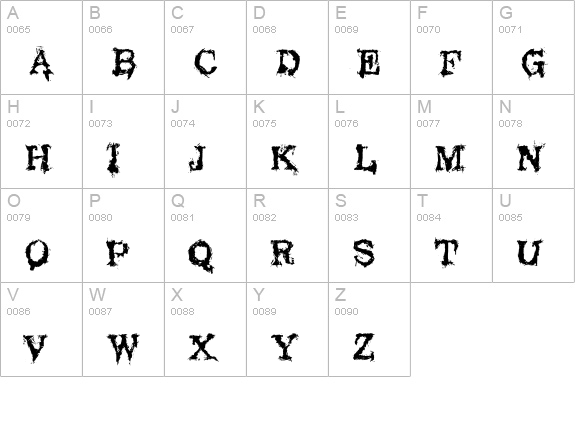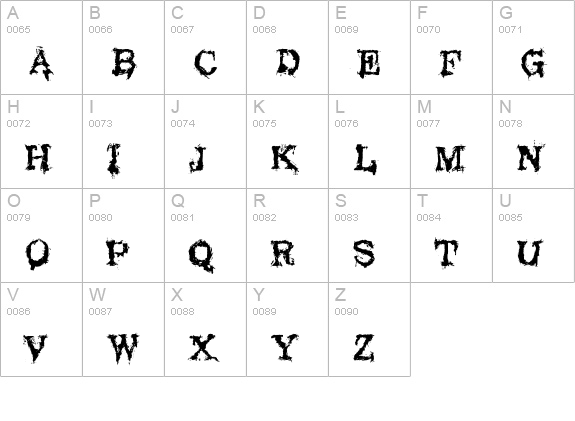
Black Asylum is a maximum-weight, dramatic variant in the Black typeface family \xE2\x80\x94 well suited to maximum-impact headlines, posters, and packaging.
Black Asylum font is a captivating and mysterious typeface that exudes an air of darkness and intrigue. Its bold and dramatic letterforms are reminiscent of a gothic architectural style, with sharp angles and intricate detailing that give it a truly unique and haunting character. This font is perfect for creating eye-catching designs that demand attention and evoke a sense of mystery. Whether used for headlines, logos, posters, or other creative projects, Black Asylum adds a touch of elegance and sophistication, while still maintaining an edgy and thrilling atmosphere. One of the greatest things about Black Asylum font is that it is completely free. It is freely available to download at FontsMarket.com, making it accessible to designers and enthusiasts alike. With just a few clicks, you can have this captivating typeface at your disposal, ready to bring your creative visions to life. So why wait? Embrace the dark allure of Black Asylum font and add a touch of intrigue to your designs. Download it for free at FontsMarket.com and unleash your creativity today.